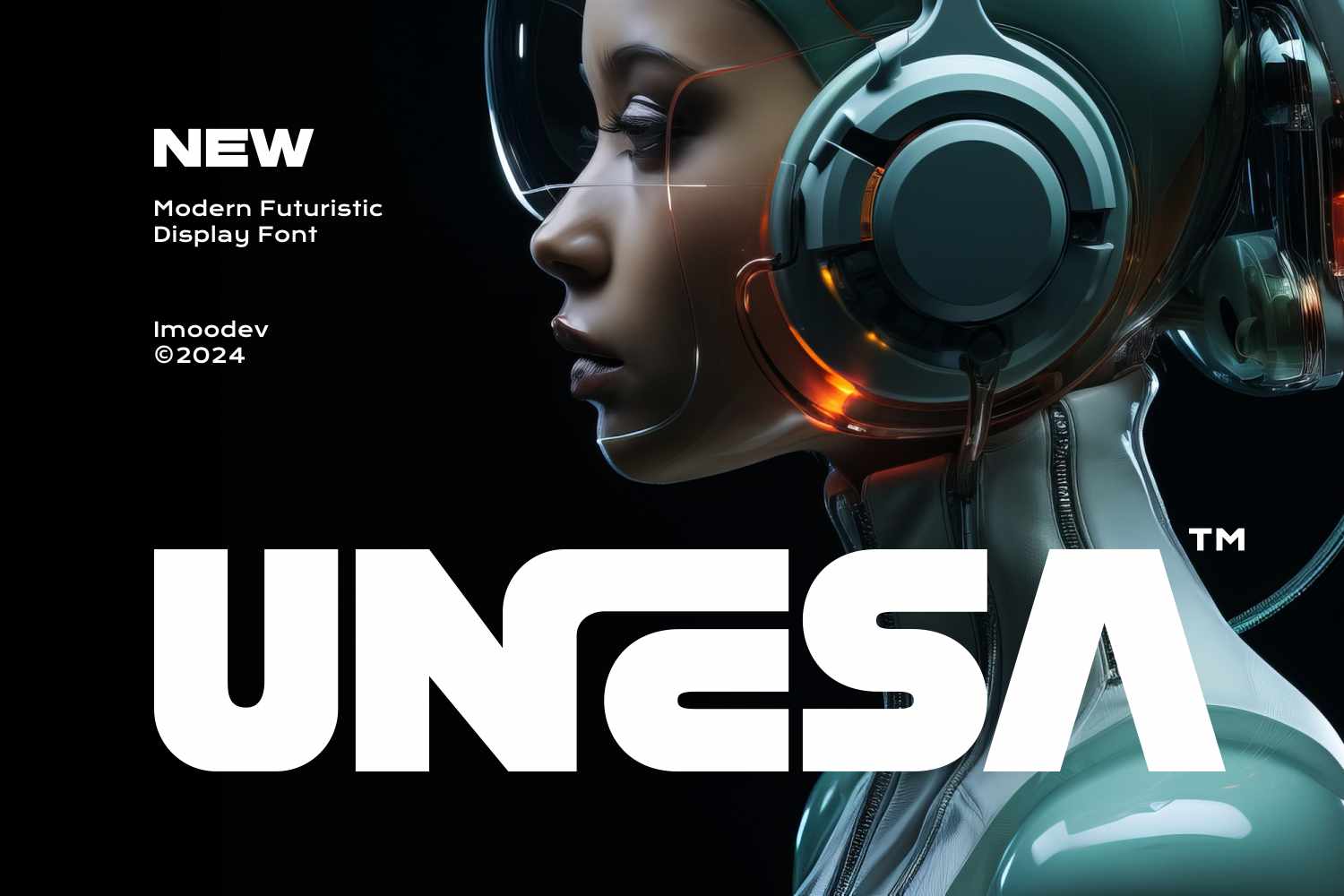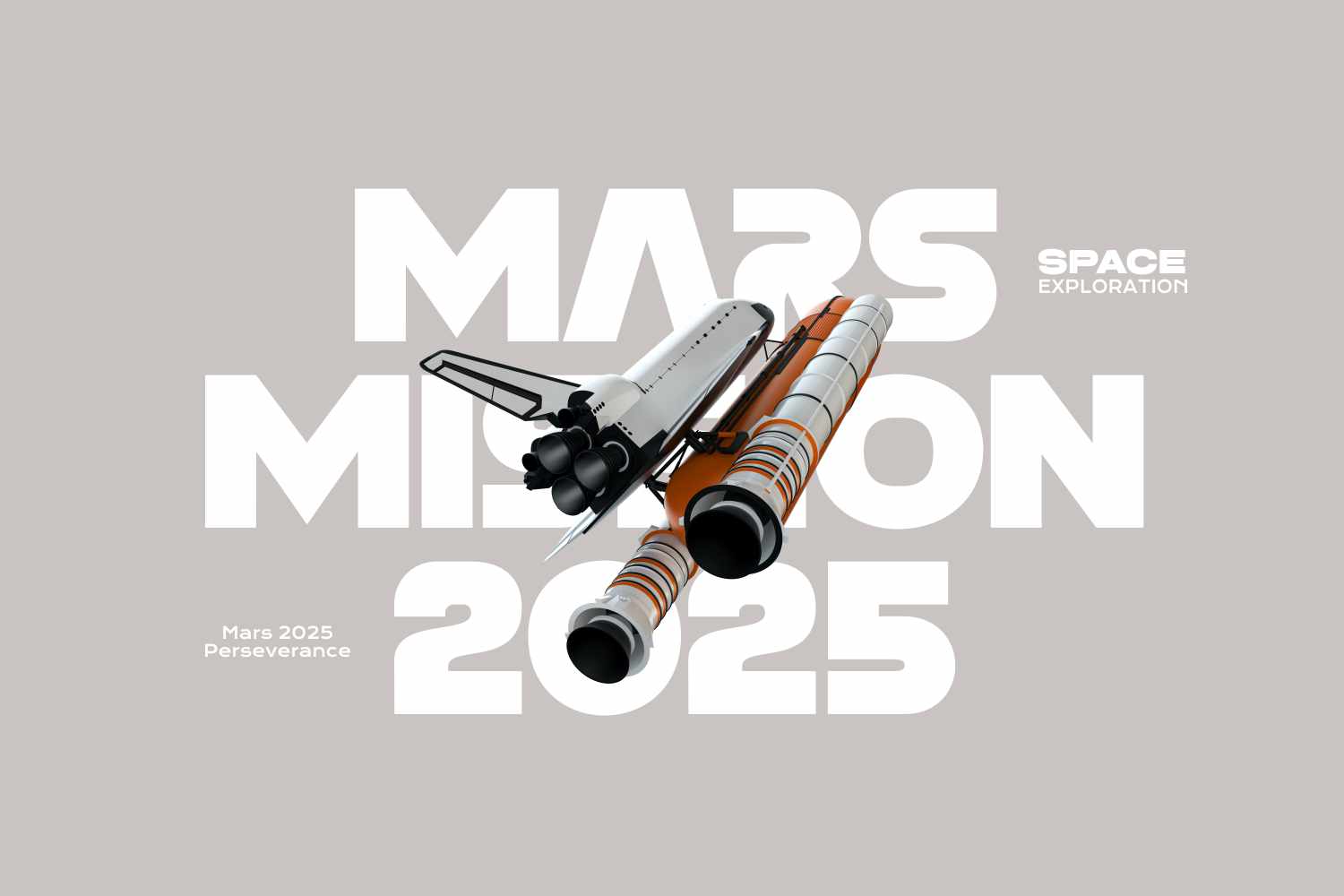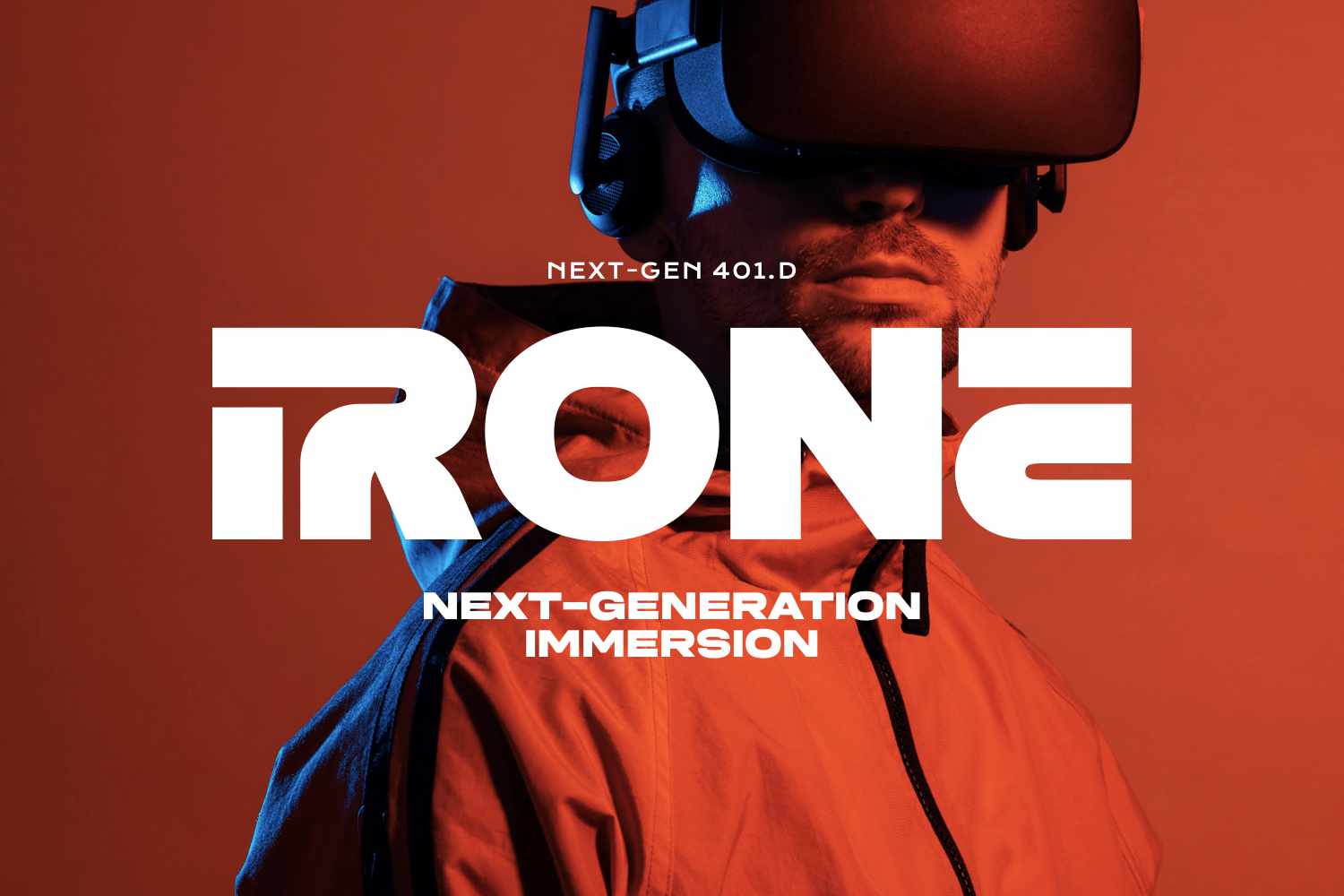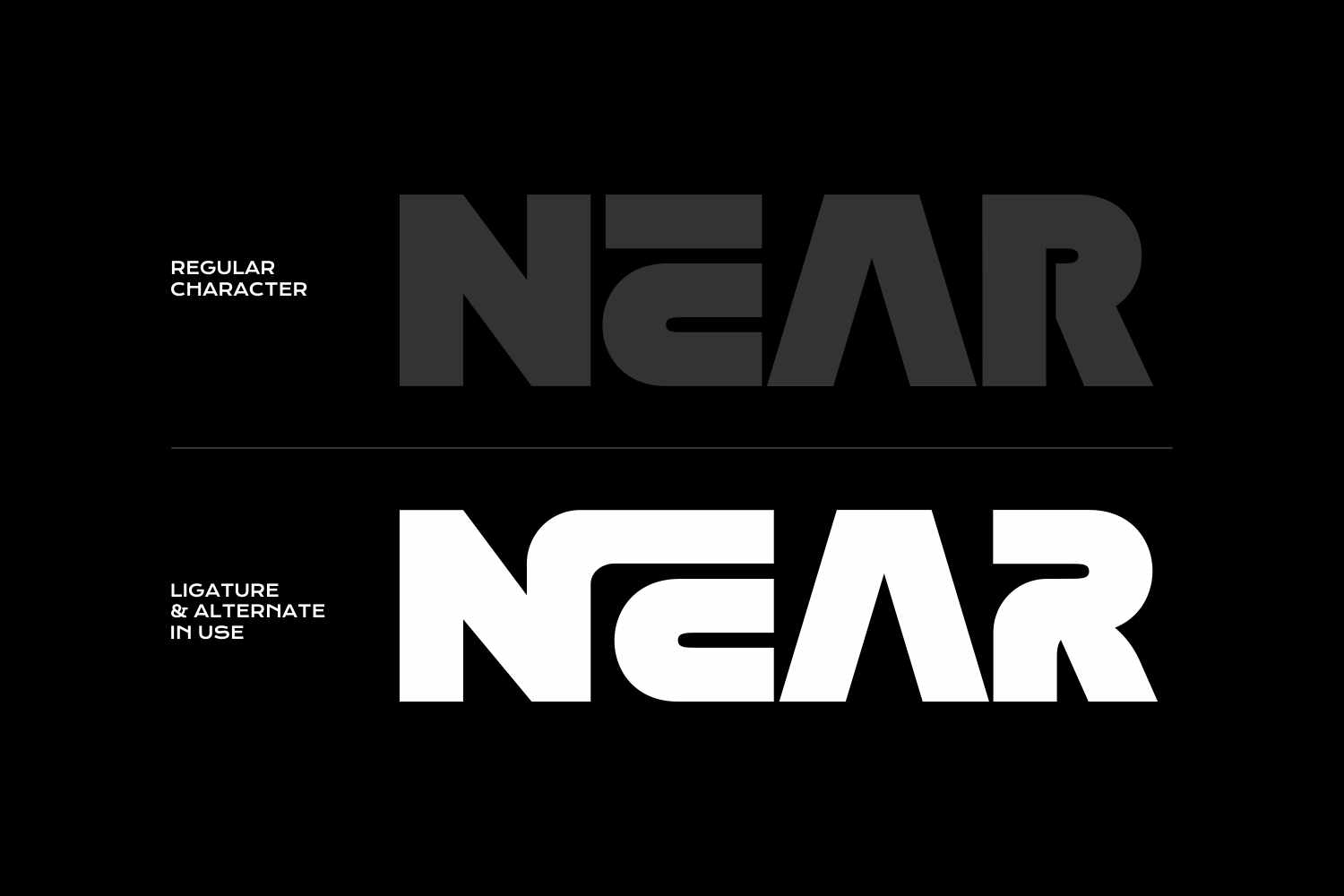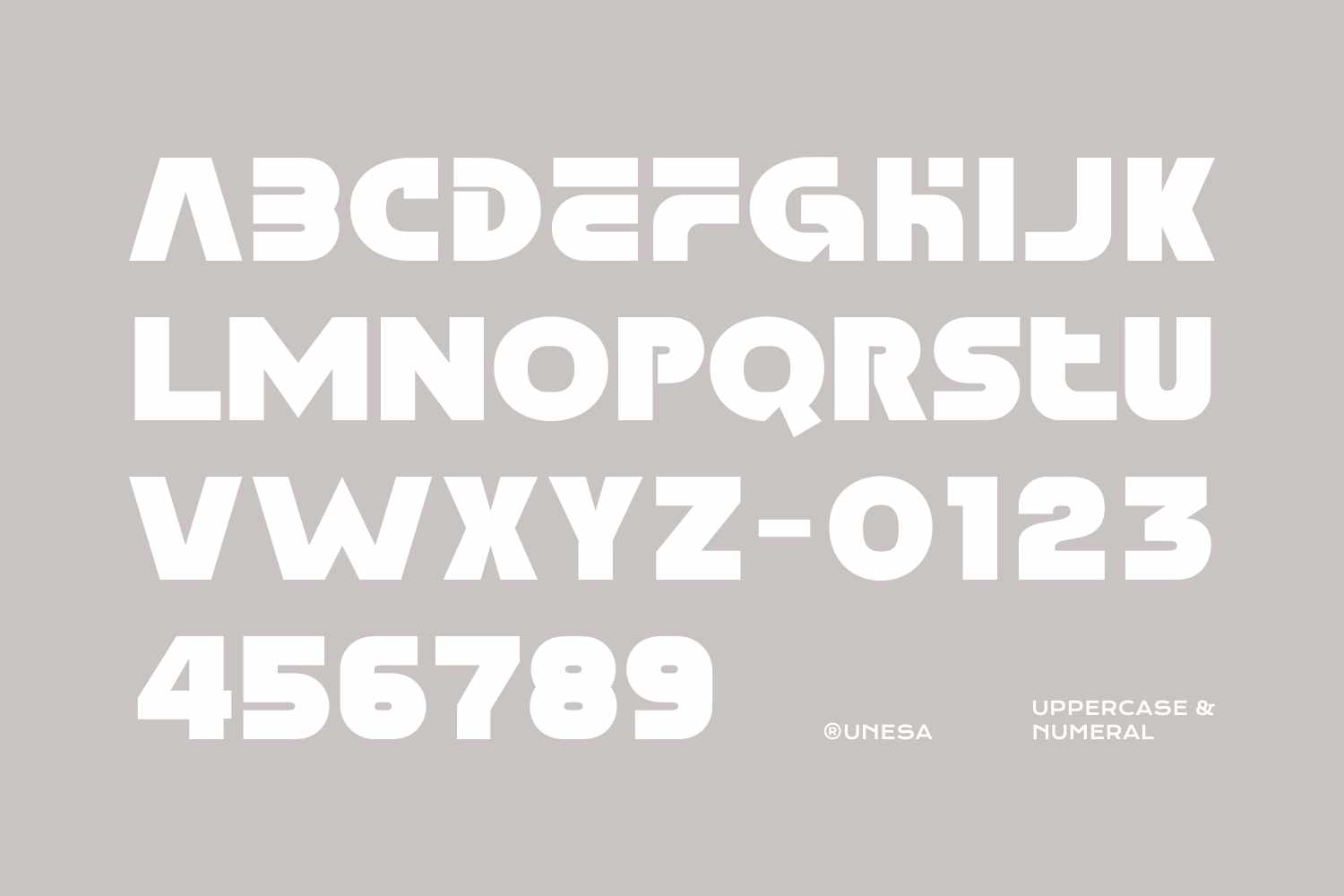
Unesa is a bold modern display font with a futuristic and geometric aesthetic, designed to make a powerful visual impact. Its sharp edges, solid strokes, and unique cutouts create a tech-forward look that’s perfect for sci-fi projects, space exploration themes, gaming titles, and high-tech branding. The uppercase and lowercase sets are crafted with precision, delivering a clean yet dynamic style that demands attention in both digital and print media.
With ligatures, alternate characters, and a full set of symbols, Unesa offers exceptional versatility for creative projects. From immersive posters and logo designs to cutting-edge UI/UX interfaces, this typeface ensures your message is delivered with strength and modern sophistication. Whether for futuristic campaigns or innovative product branding, Unesa is the ultimate choice for designers aiming to convey progress, technology, and vision.
Unesa